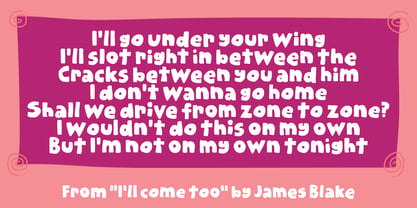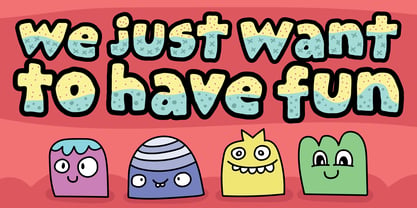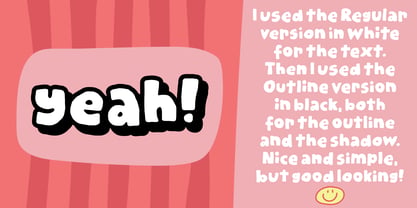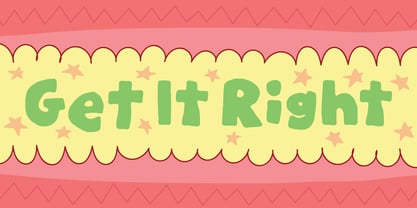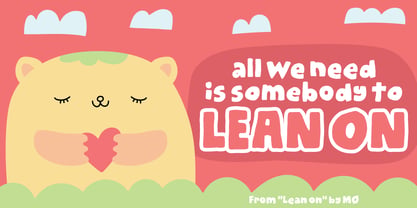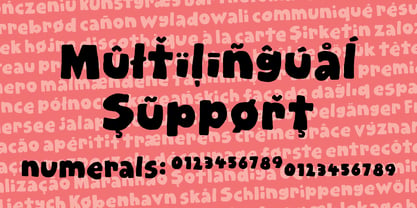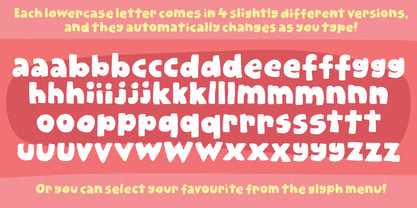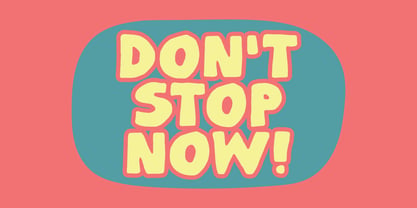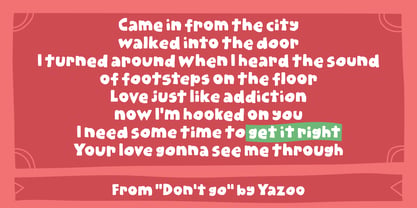
Get It Right
A nice little charming handmade font. Super friendly and useful for something to do with stuff for kids, creative posters, organic products and comic related things.
Comes in both Regular version and a fancy thick outlined version.
Features:
Contextual Alternates is a super nice feature. In this case I have added XXX versions of each letter, and they automatically changes as you type. Or, you can manually choose the letter(s) that you wish. This is a great way to avoid obvious repeating letters, making your text look more vivid, vibrant and organic.
Ligatures
In order to make the font appear more vivid and lively, I have added Ligatures in order to avoid obvious repeating letters.
I have included the Standard Ligatures - the well-known ligatures such as ff, fi, fl, ffi, ffl
Subscript and Superscript
Normally typedesigners resizes the numbers to make Subscript and Superscript. I do that on occasions as well, but in this case I have drawn the numbers, instead of resizing them. That way they appear more natural, organic and unique.
Fractions are nice having available. You skip the work of resizing the numbers yourself, because I have done all the work for you!
Multilingual support
This font comes with extensive multilingual support, and supports loads of different languages.